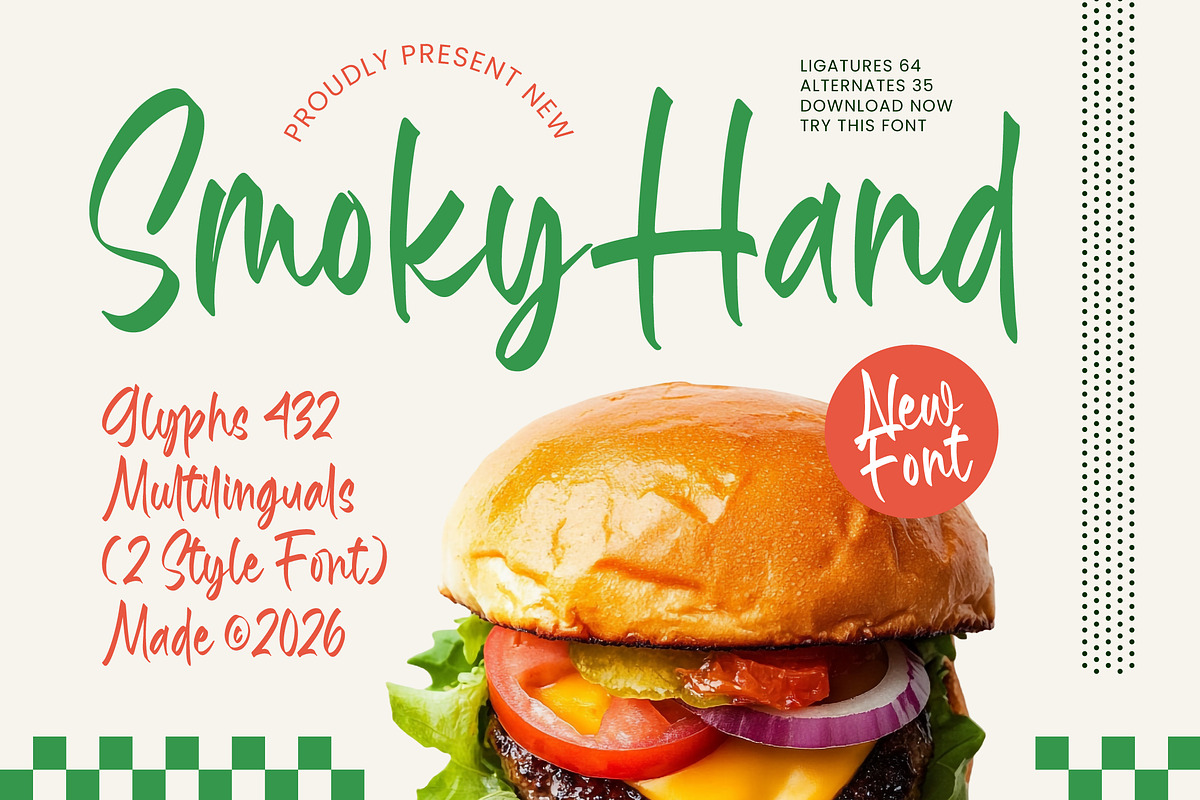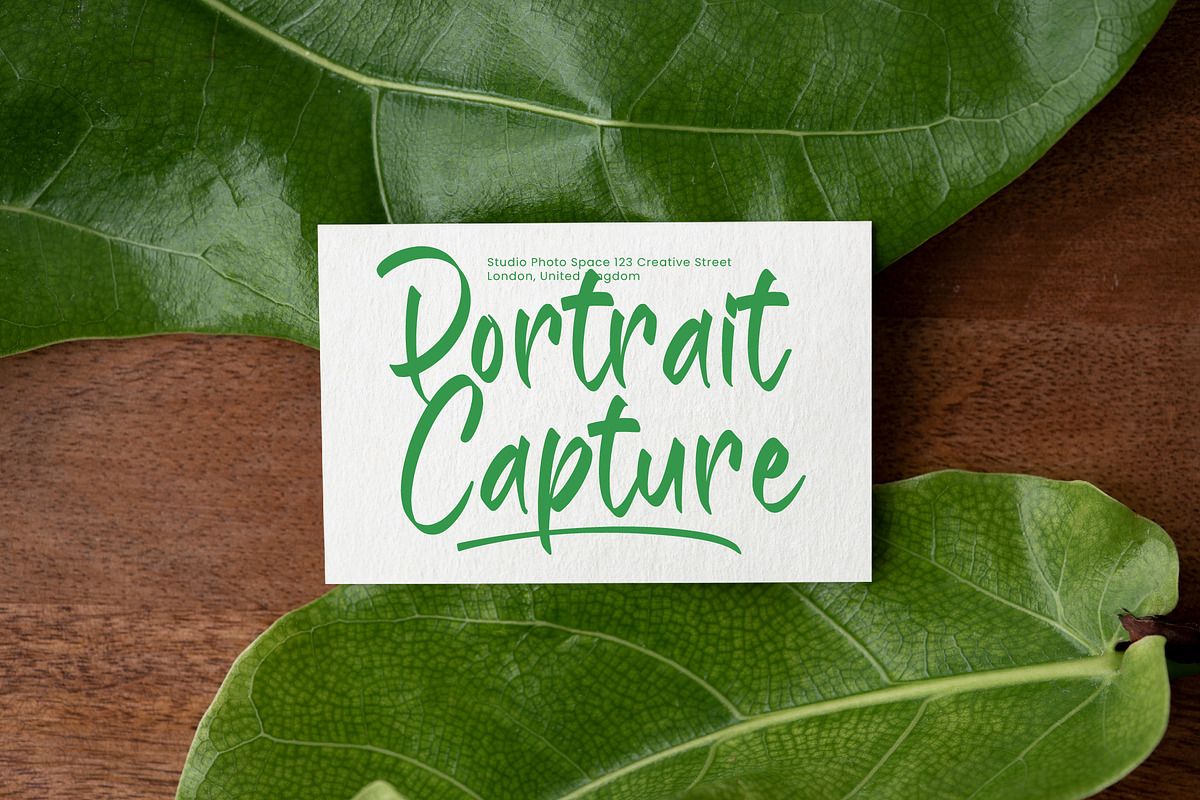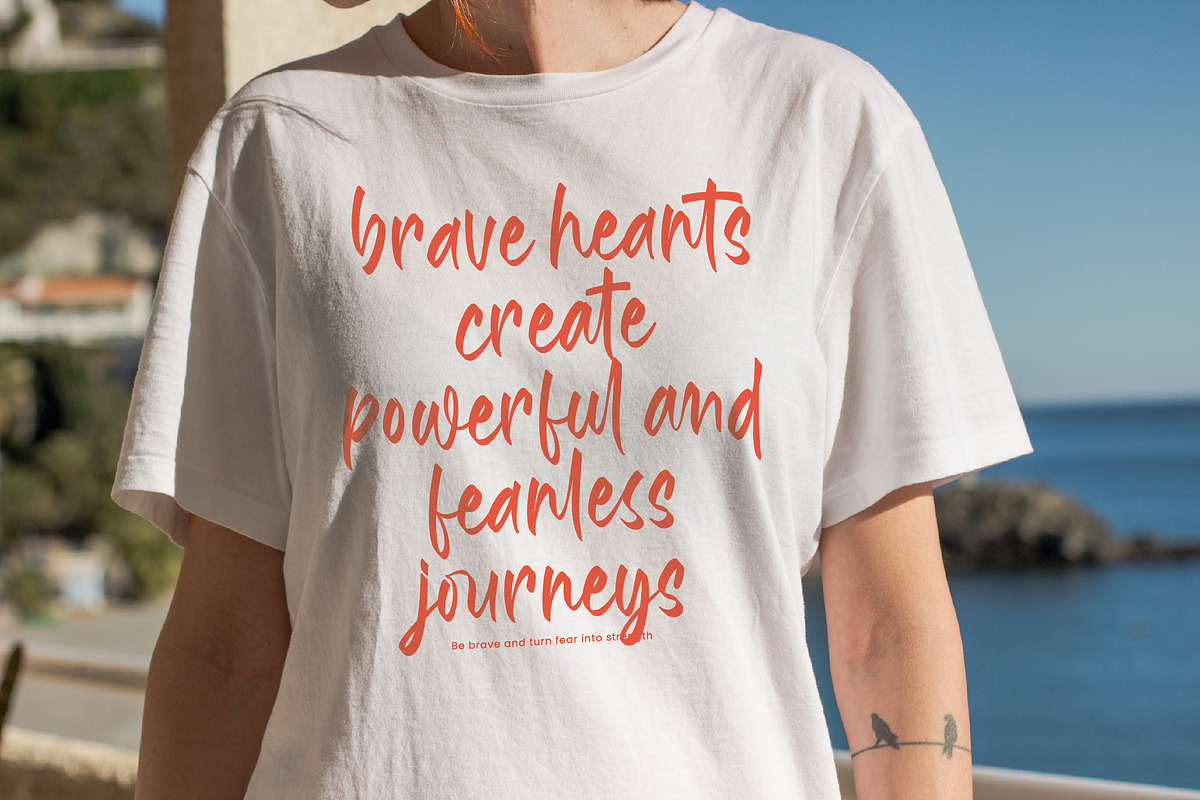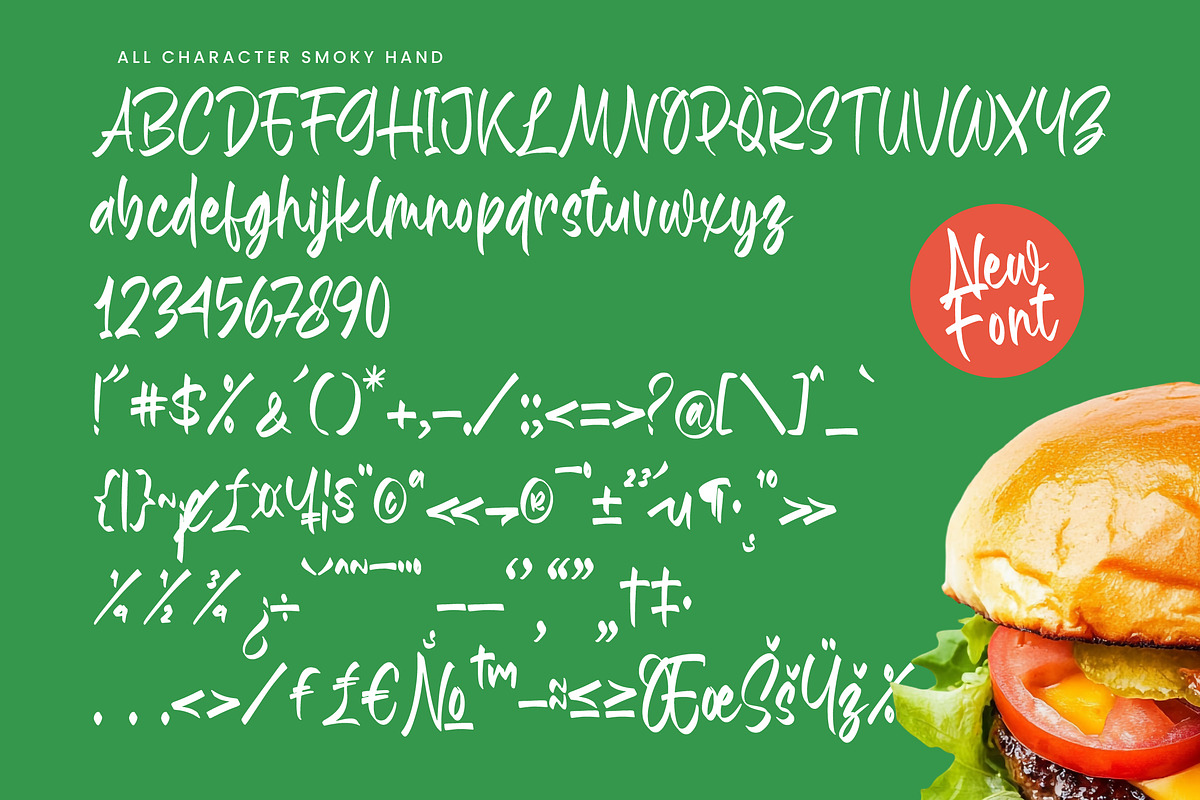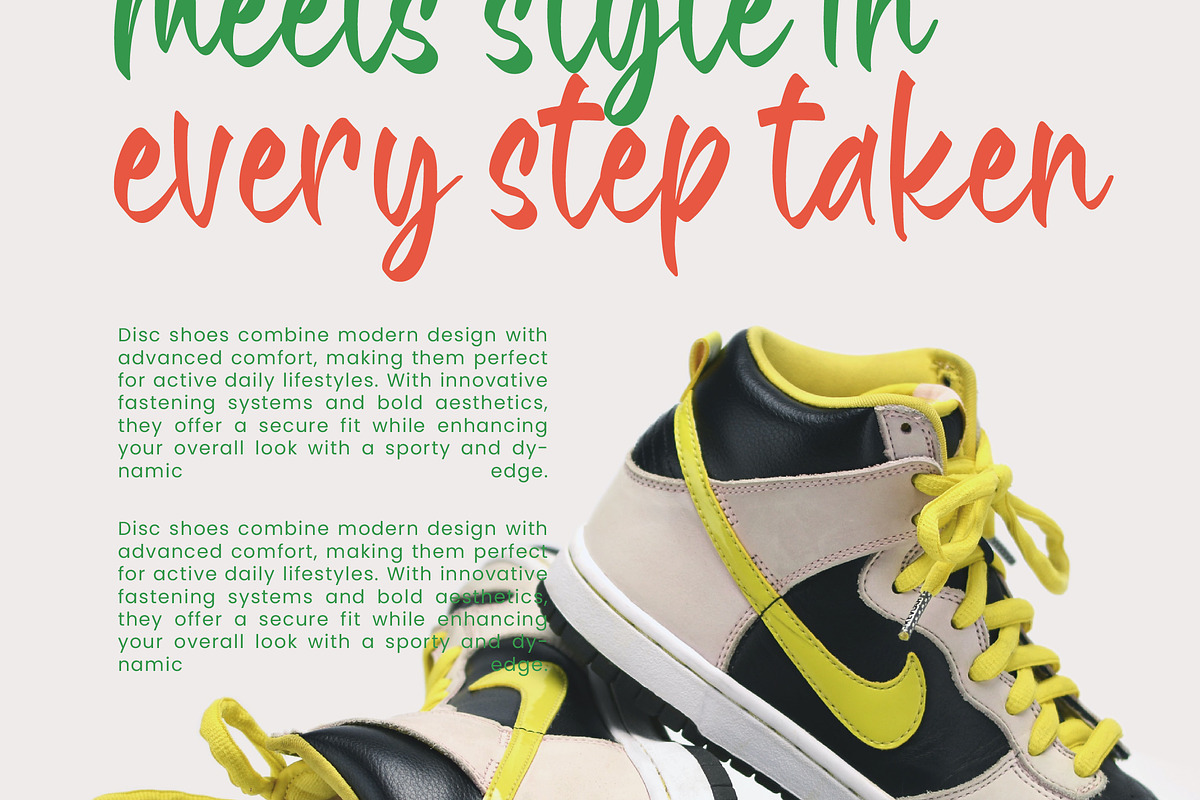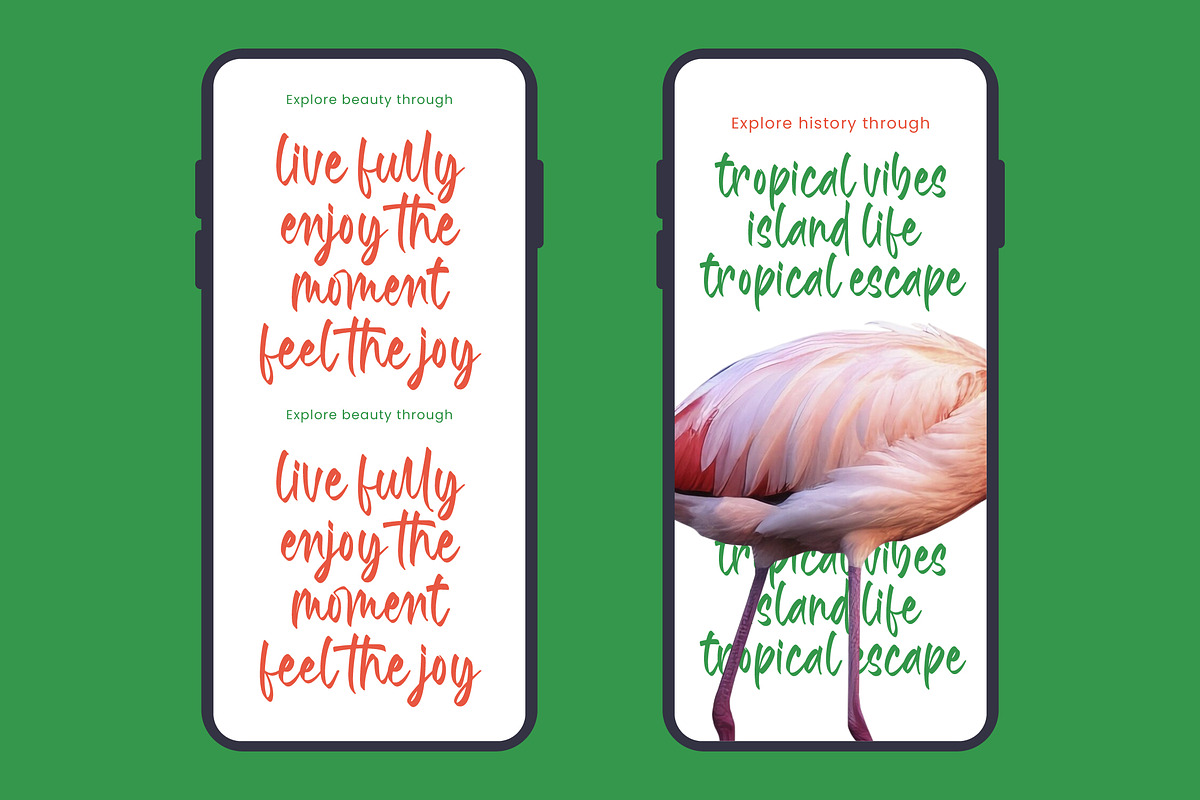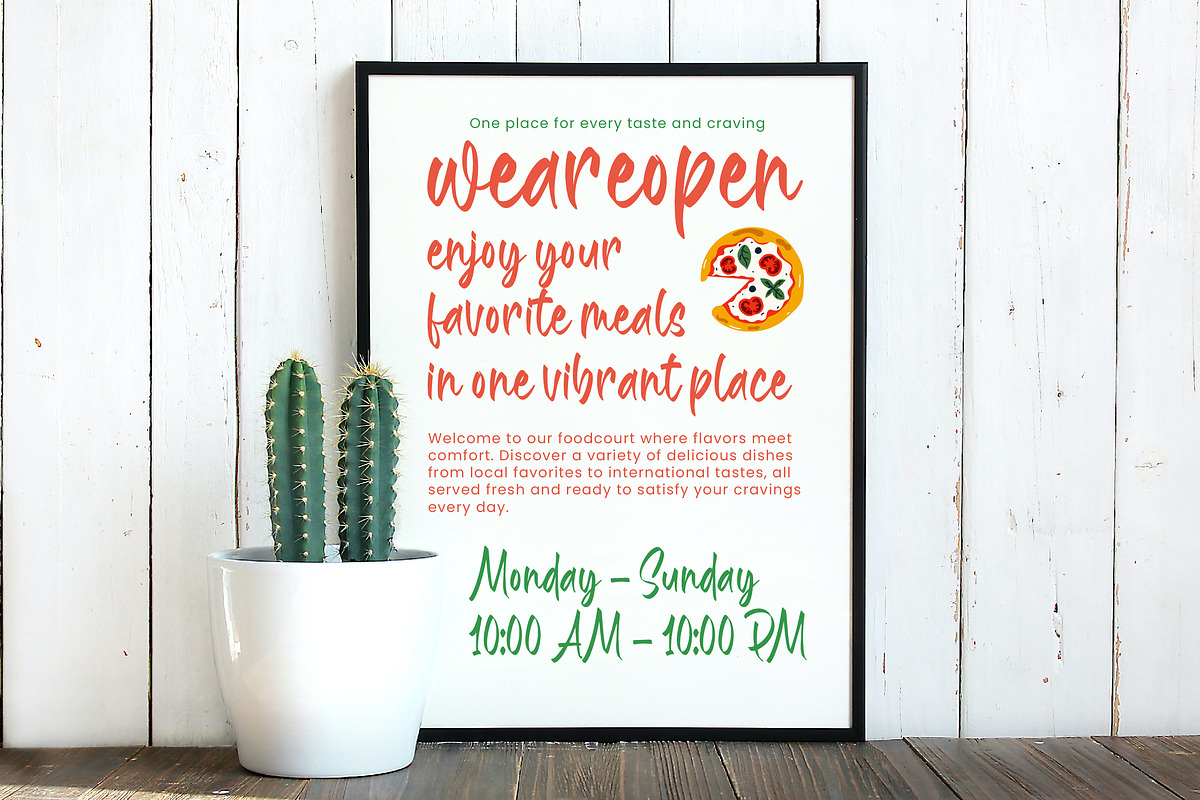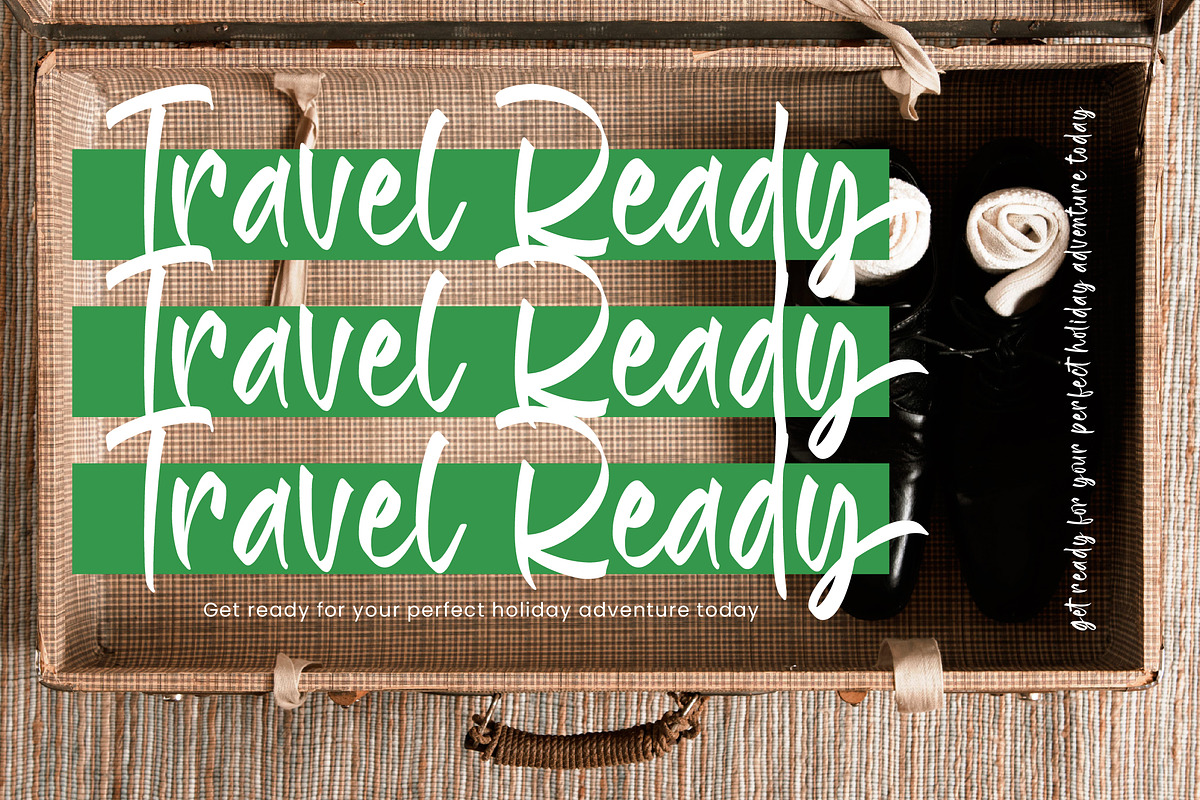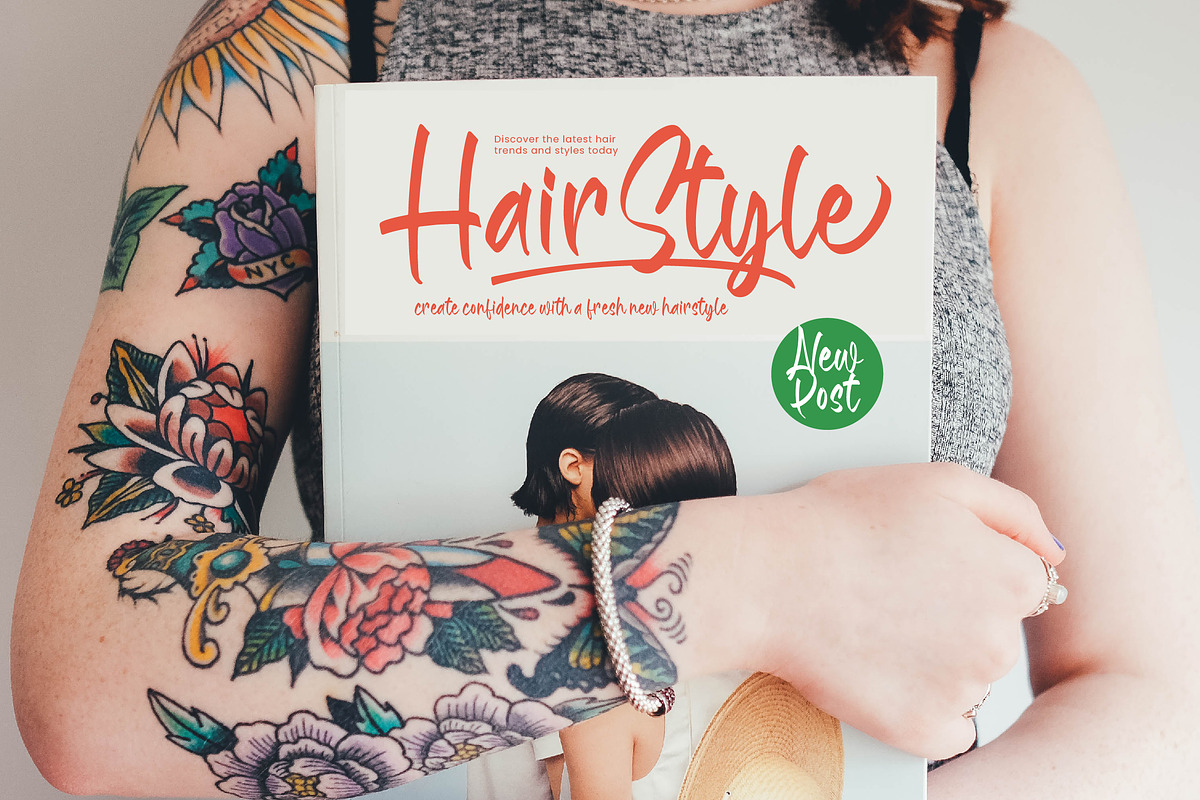
Smoky Hand Stylish Handwritten Font
Smoky Hand – Stylish Handwritten Font , Elevate your brand identity with a touch of organic sophistication by choosing Smoky Hand – Stylish Handwritten Font. This typeface captures a perfect balance of fluid, natural brush strokes and high-impact personality, making it an essential tool for designers seeking an authentic, hand-crafted aesthetic. The versatile design ensures that your headers and logos stand out with a unique visual rhythm that commands attention without feeling forced.
Technical excellence meets creative freedom in this comprehensive typeface which features over 432 glyphs and a wide array of dynamic ligatures. With its extensive multilingual support, Smoky Hand – Stylish Handwritten Font adapts seamlessly across global markets, making it incredibly versatile for international projects. The inclusion of multiple font styles and character alternates allows for a truly customized typographic experience that resonates with diverse audiences worldwide.
Transform ordinary layouts into extraordinary visual experiences with a font built for high-end versatility. This typeface is the perfect choice for food and beverage branding, lifestyle packaging, and editorial design, where a personal touch is paramount. Whether you are working on luxury branding or modern social media marketing, Smoky Hand – Stylish Handwritten Font provides the professional polish needed to elevate your commercial projects.
Invest in a premium design asset that bridges the gap between casual charm and commercial efficiency. By integrating Smoky Hand – Stylish Handwritten Font into your creative workflow, you gain access to a timeless aesthetic that remains highly legible and stylishly expressive. Secure this essential typography solution today and redefine your brand’s visual narrative with confidence and artistic flair.